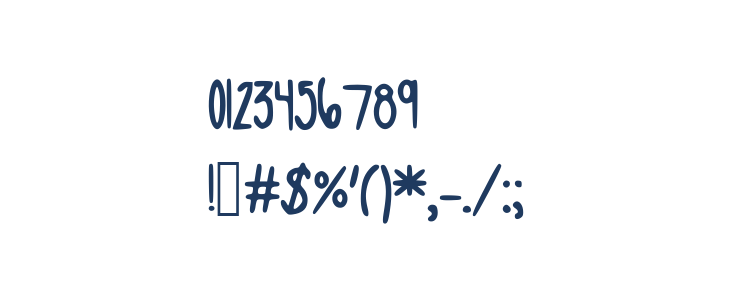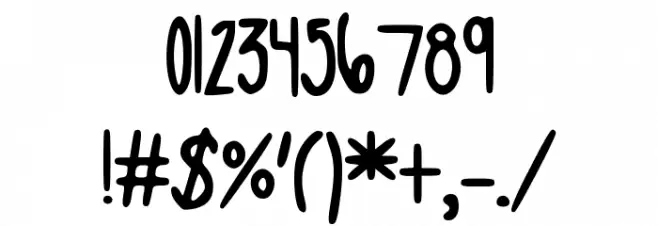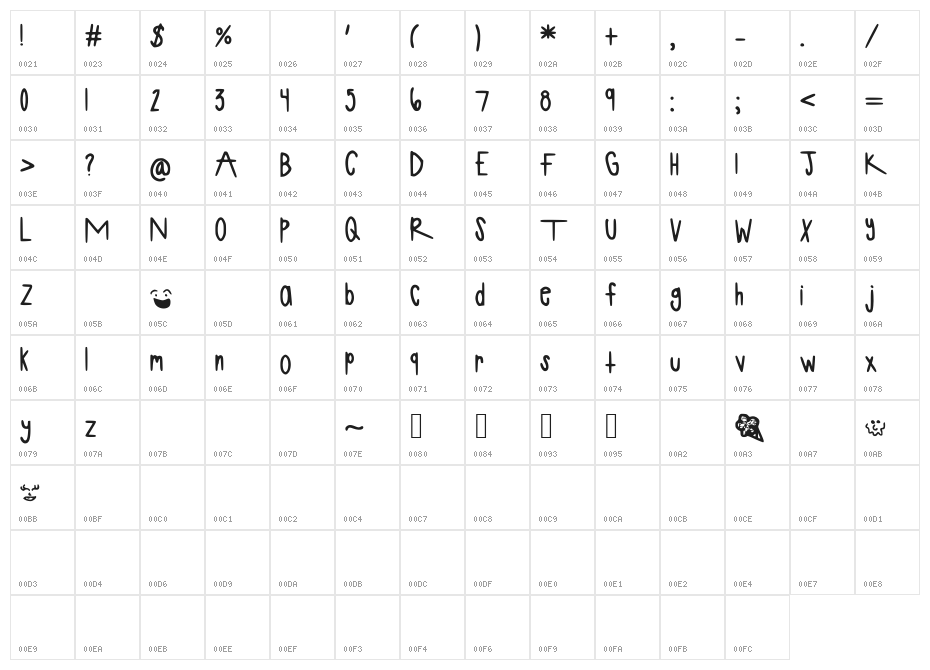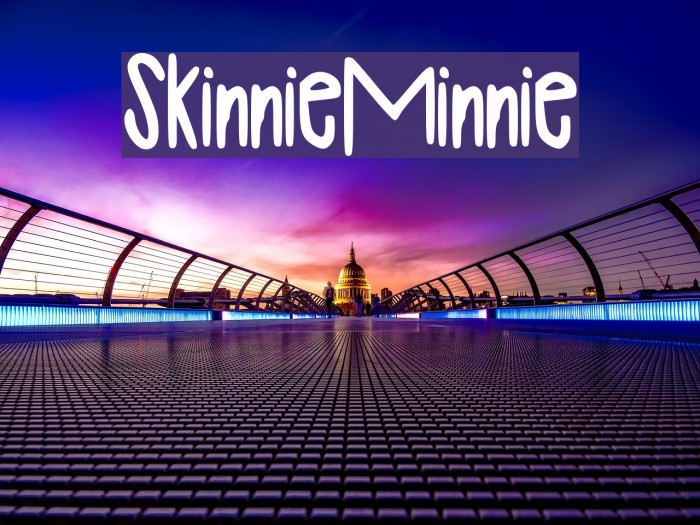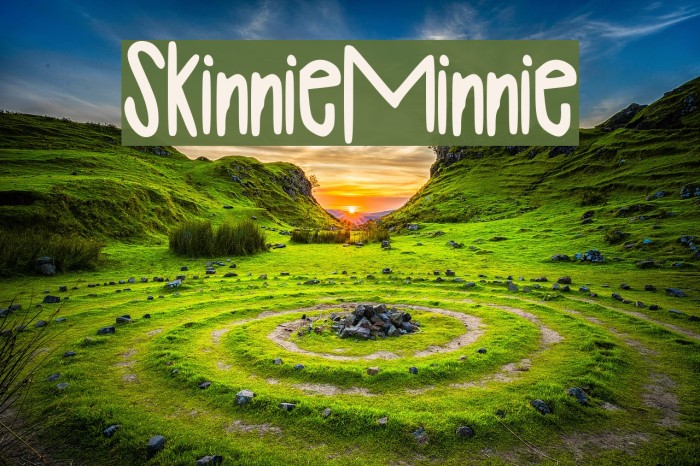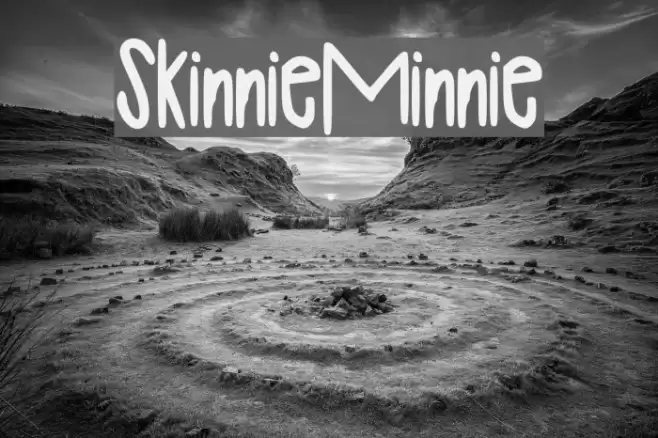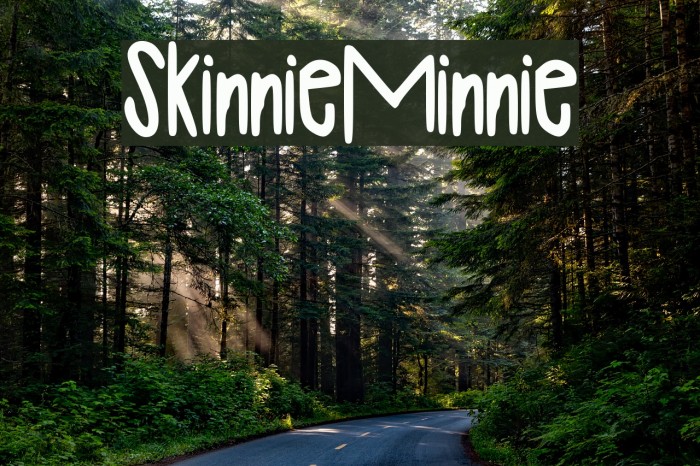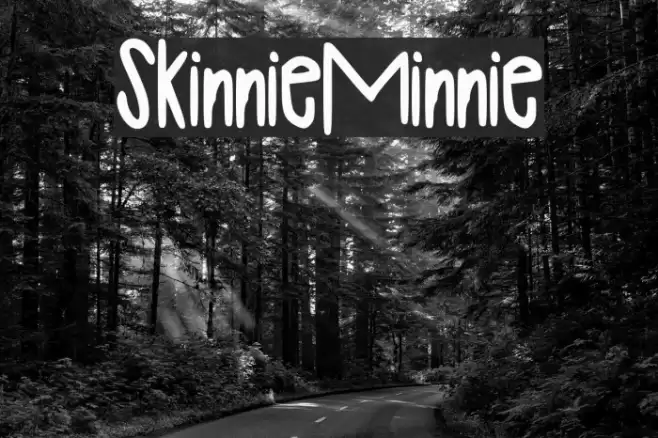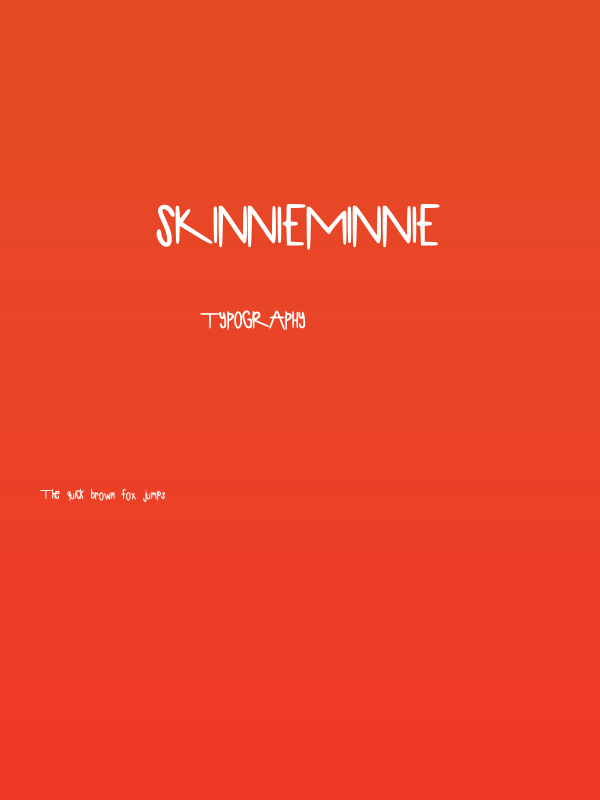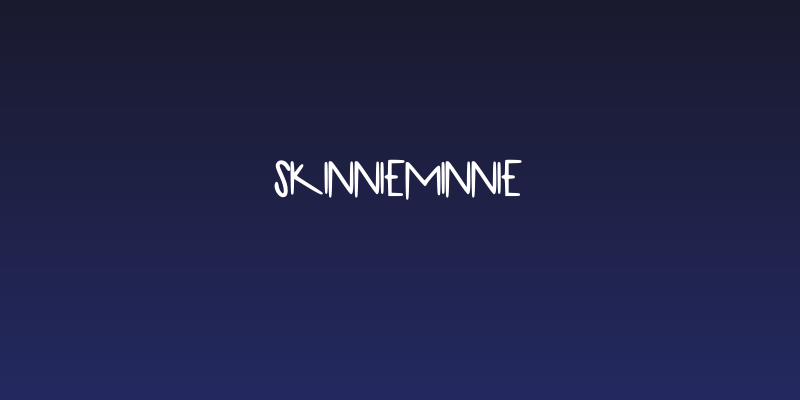
SkinnieMinnie Font
SkinnieMinnie Description
This font features a playful and whimsical style with elongated, narrow characters that give it a unique and quirky appearance. The letters are slightly irregular, adding a hand-drawn feel that enhances its charm. The uppercase letters are tall and slender, while the lowercase letters maintain a consistent height, creating a harmonious balance. The numbers and special characters follow the same playful design, making them easily recognizable. This font is perfect for projects that require a fun and informal touch, such as children's books, greeting cards, or casual branding.
| Proposed Projects | Ideal for children's books, greeting cards, casual branding, and playful designs. |